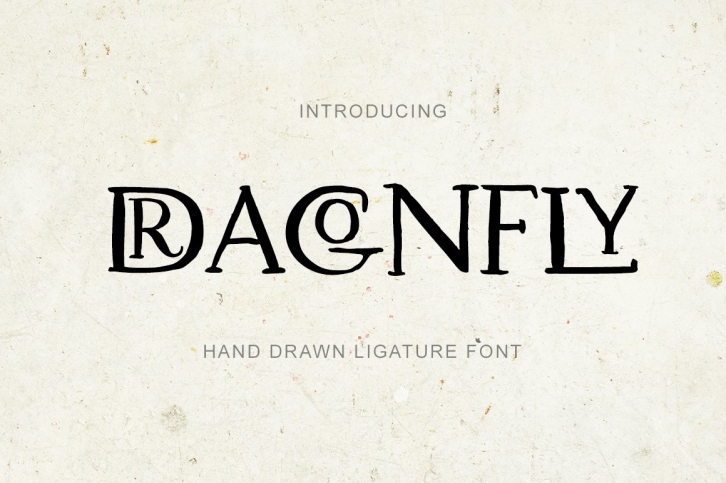
Dragonfly. Uppercase Ligature . is a gorgeous font that was realeased on April 5, 2020. The font can be used in many style contexts and design environments. Perfect for invitations, magazines, websites, logos, and more! It was designed by DollarBill and the file size is 19.17 MB. Thanks for checking out this font!